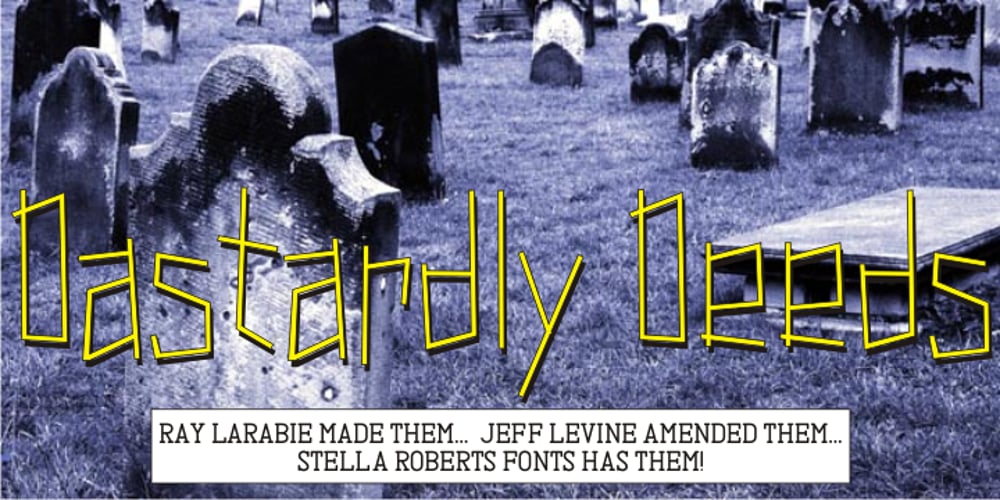
Dastardly Deeds SRF
Dastardly Deeds SRF font
Dastardly Deeds SRF Font Family was designed by published by Stella Roberts Fonts. Dastardly Deeds SRF contains 1 styles and family package options. This design from Ray Larabie (and adapted by Jeff Levine) is so unusual. The lettering lends itself to messages of sinister intent or horror movie titles. The net profits from my font sales help defer medical expenses for my siblings, who both suffer with Cystic Fibrosis and diabetes. Thank you.